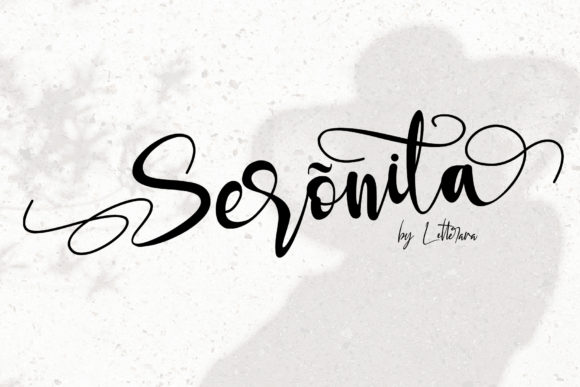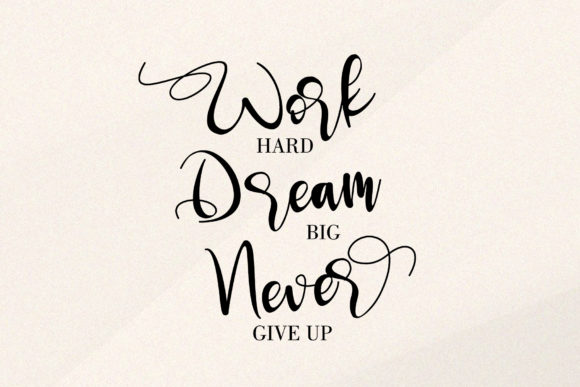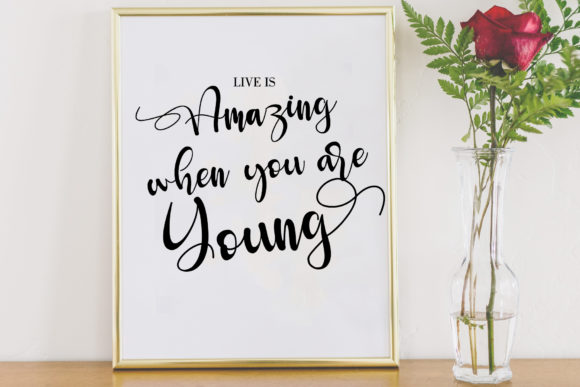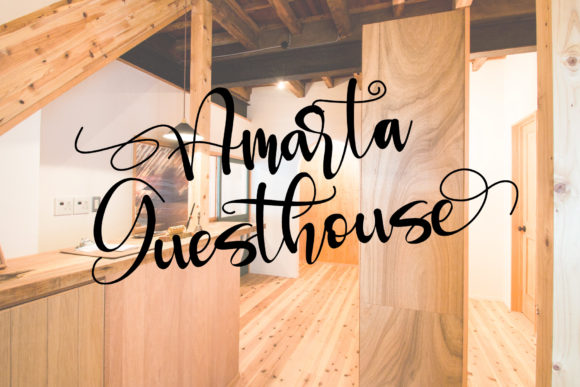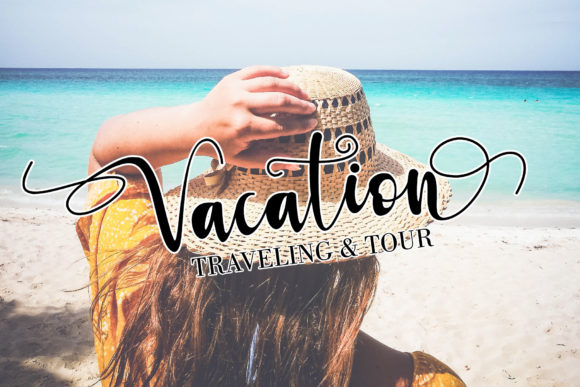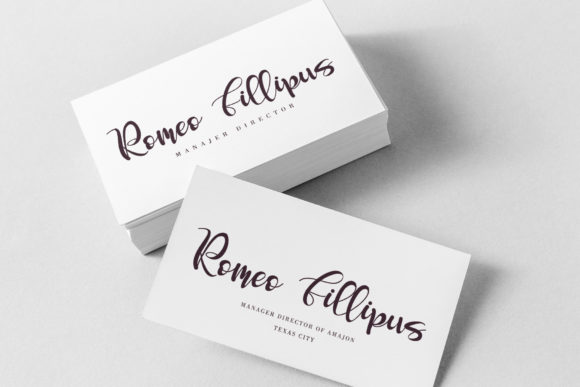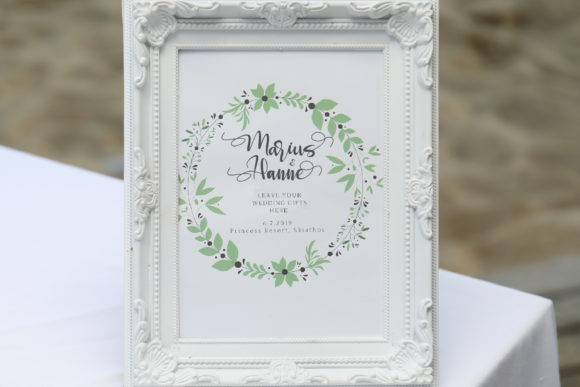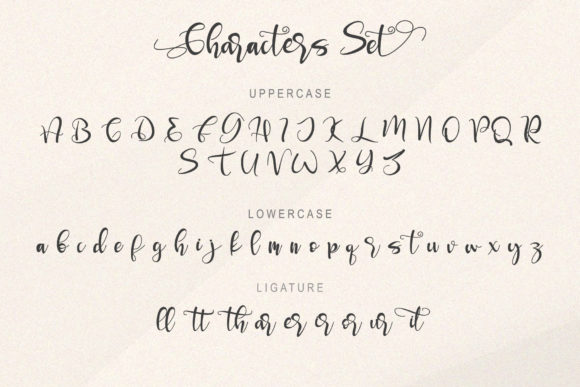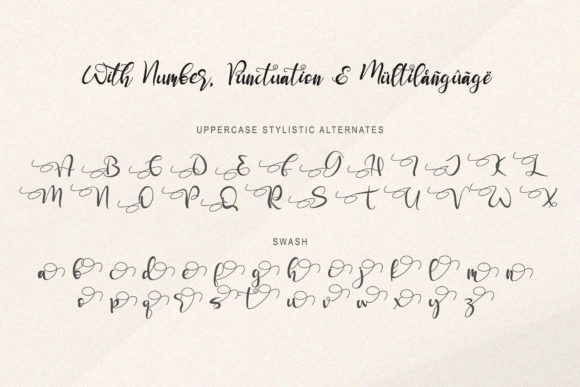
Seronita Font
About Seronita Font
Seronita is a modern calligraphy font. It has a natural writing style and is perfect for adding an elegant and luxurious feel to your designs.